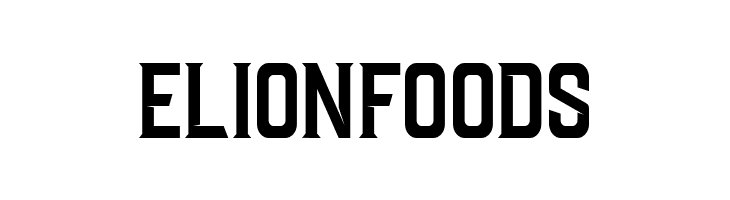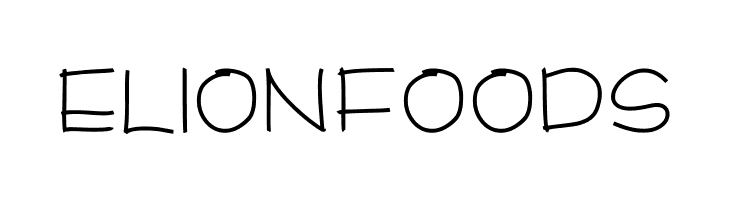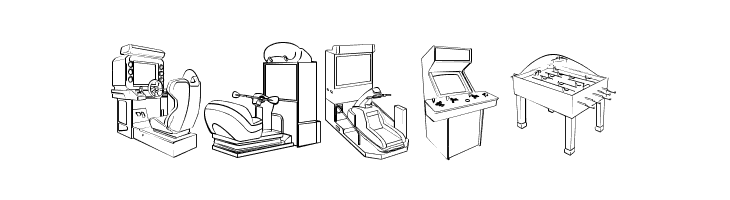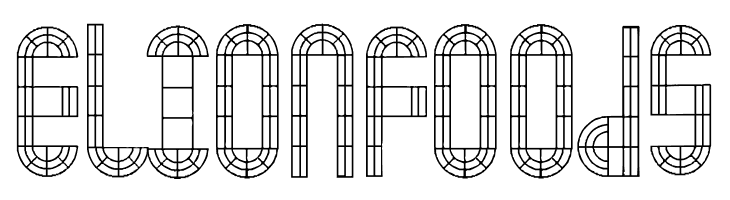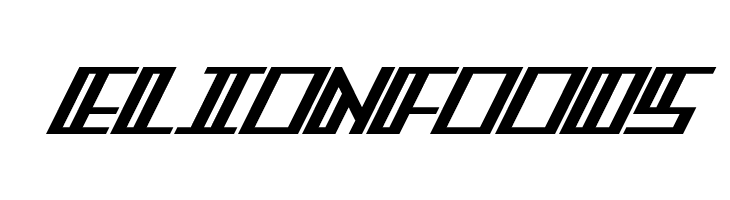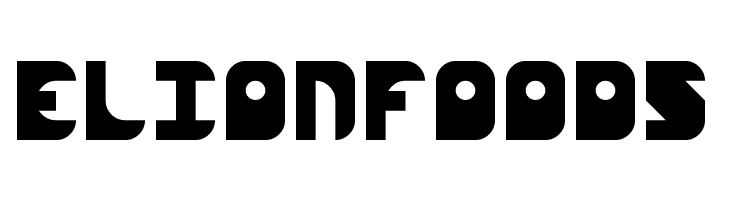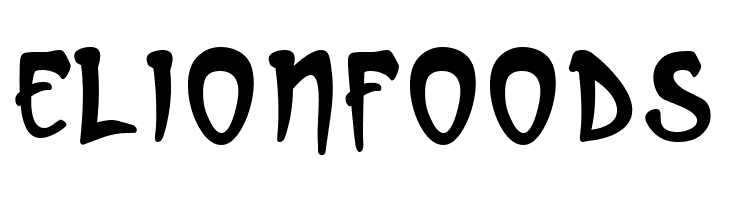
A bold, angular font with a retro arcade aesthetic.
A bold, geometric font with a modern twist and vintage influences.
A bold, modern font with geometric, angular characters ideal for headlines.
A bold, playful handwritten font with thick, rounded strokes and a whimsical style.
A bold, angular font with a futuristic and industrial design.
Playful handwritten-style font.